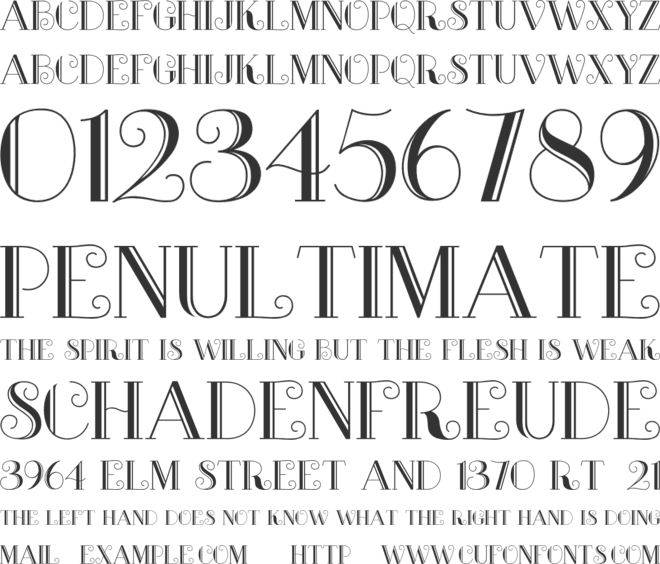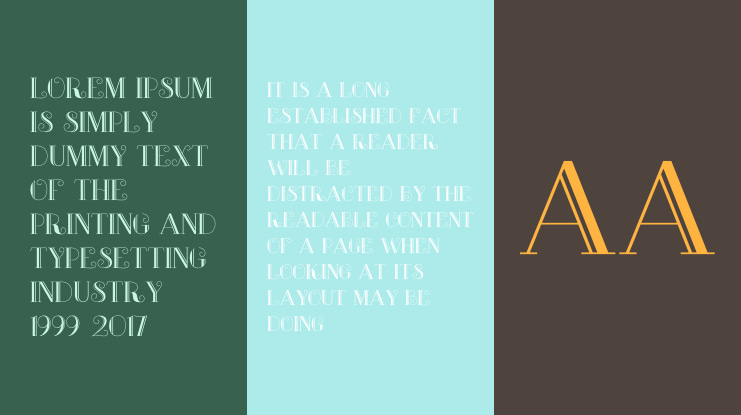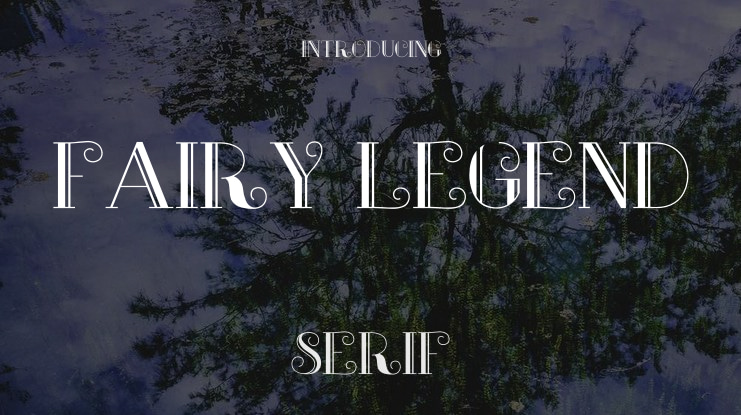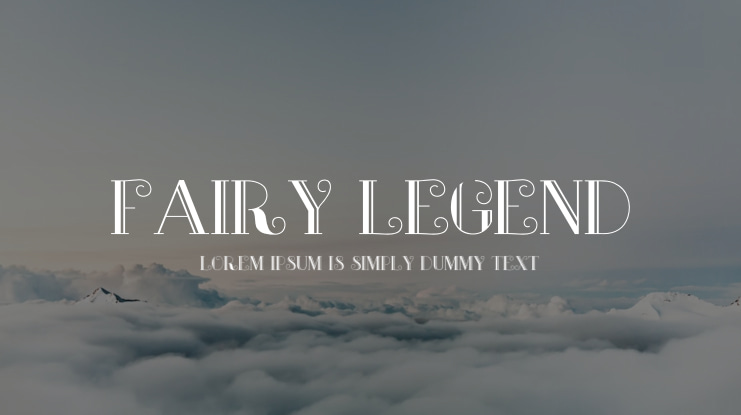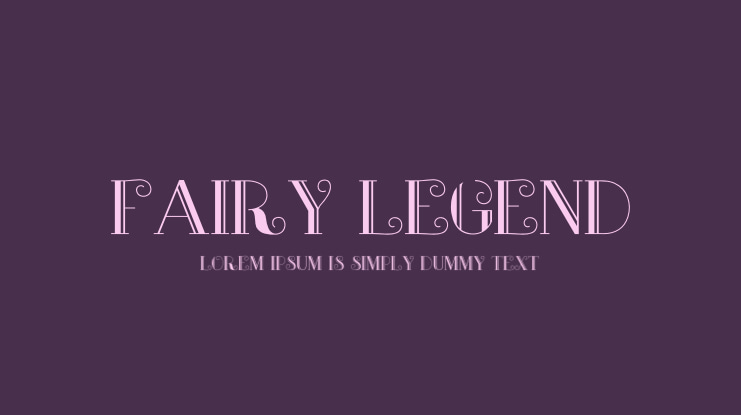
Introducing Fairy Legend, a delightful retro font crafted in the Art Deco style. Drawing inspiration from the typography of the 1920s, it perfectly complements the feel of your project.
This font is ideal for creating logos, headlines, signage, and various formal formats such as invitations, labels, magazines, books, greeting and wedding cards, packaging, fashion, makeup, stationery, novels, or any advertising purposes. It was designed to enhance the beauty and uniqueness of your digital images.